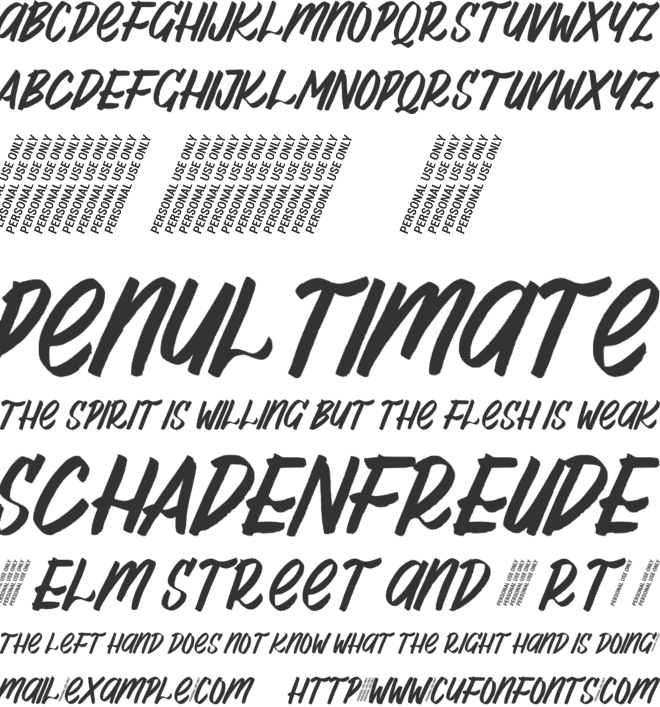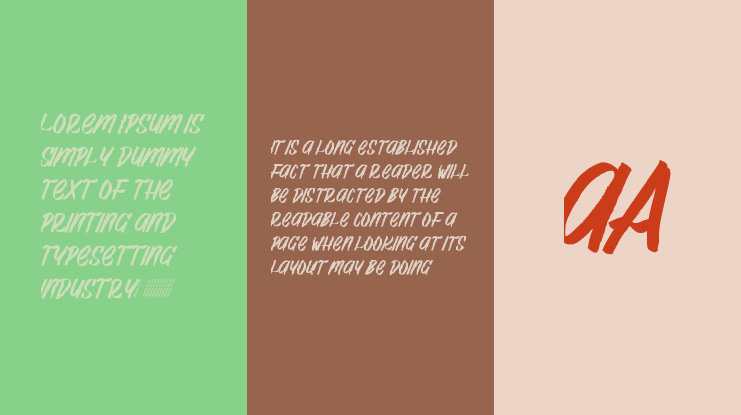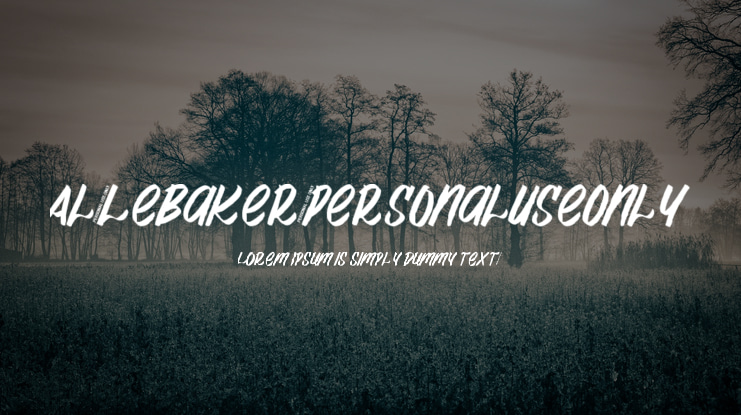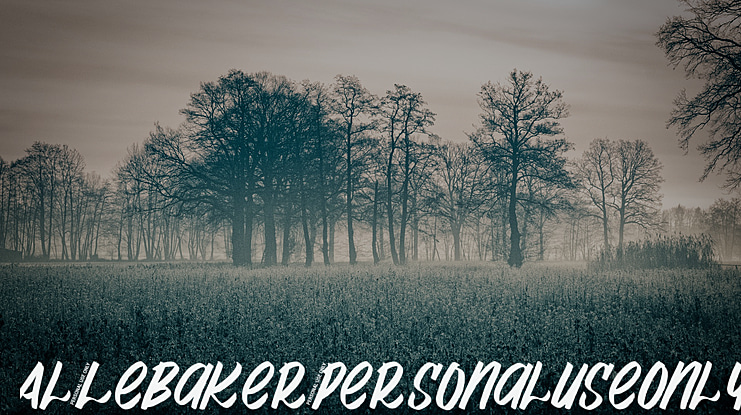
Al_LeBaker_PersonalUseOnly Font
LeBaker a sassy script brush font! Allowing you to create sassy handwritting. With ligature that give it special touch. LeBaker script is guaranteed to make your text stand out - perfect for printed quotes, poster, cards, product packaging, headers, branding and whatever your imagination holds.